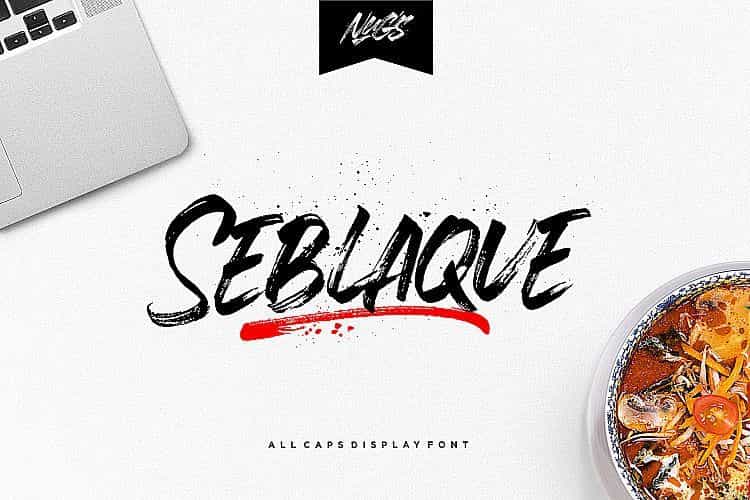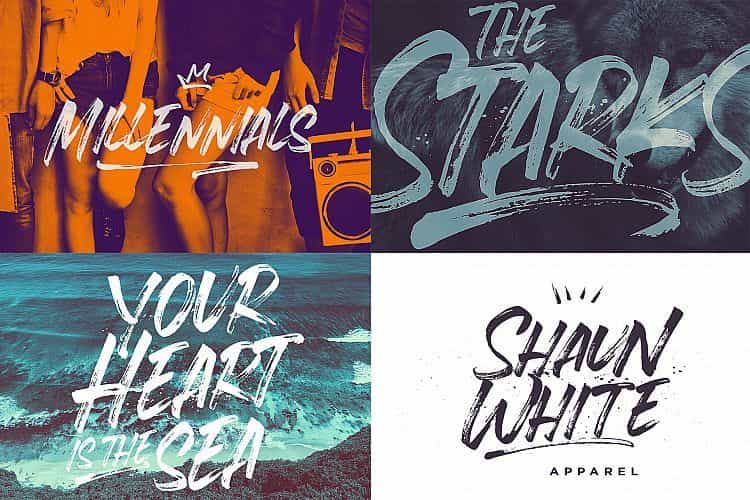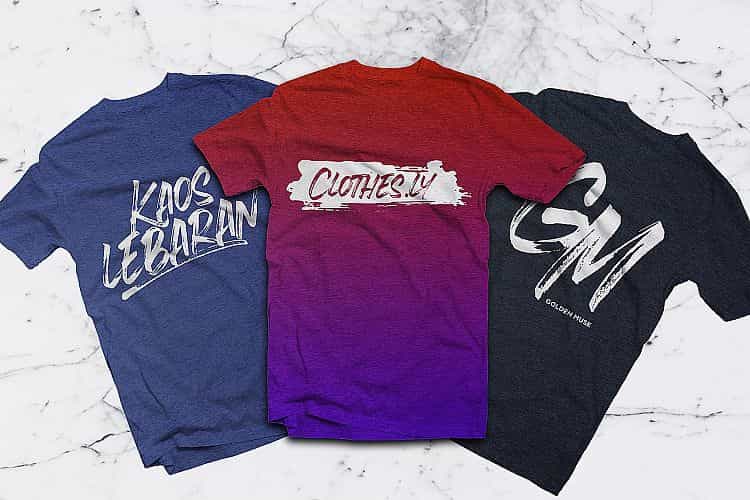
Introducing Seblaque Font. Seblaque Feel is a hand drawn font that was designed by using a dry brush. This is the best for big screens, titles, posters and marketing & advertising.